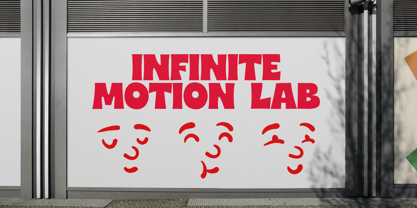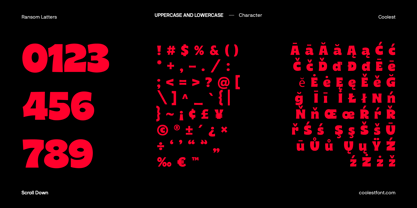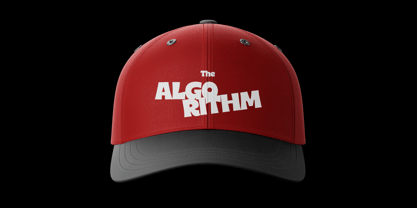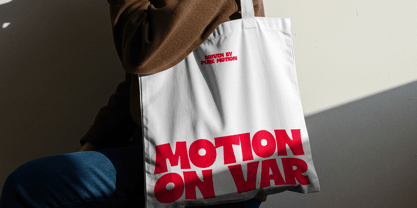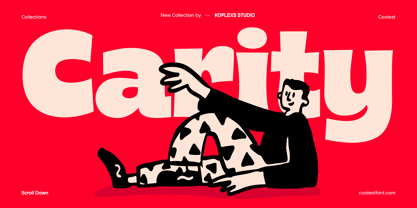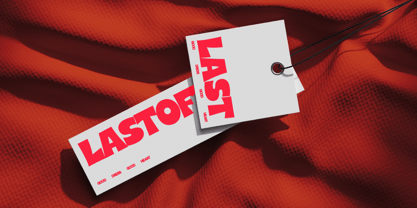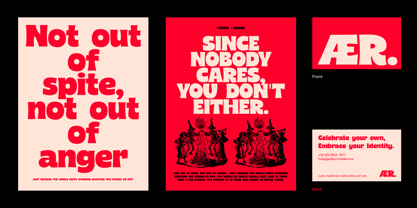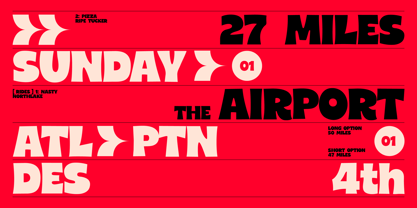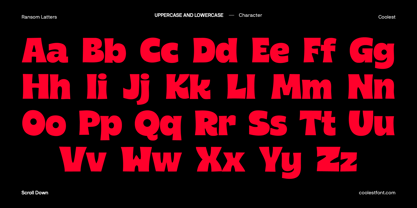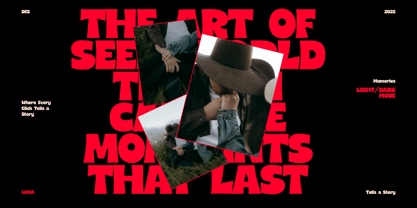
Carity
by Koplexs Studio
The Carity Font Family was designed by Ahmad Muslimin and published by Koplexs Studio. Carity contains 1 styles. More about this family
Carity – Modern Bold Typeface for Branding Carity Font is a bold modern display typeface designed with chunky, expressive curves and a strong visual rhythm that instantly captures attention. Its playful yet confident structure makes it ideal for impactful branding, logo design, posters, packaging, editorial titles, and digital content that requires a memorable typographic voice. Carity combines smooth letterforms with a contemporary aesthetic, creating a balance between creative personality and professional usability across various design applications. Crafted for designers, agencies, and brands looking for a distinctive display font, Carity performs exceptionally well in large headlines and high-visibility compositions. Whether used for marketing campaigns, fashion branding, social media graphics, or standout product presentations, this typeface offers bold character and consistent readability. With its versatile style and strong visual identity, Carity Font brings energy, charm, and bold design expression to every project. If you're seeking a modern display font that elevates your creative work, Carity is the perfect choice.